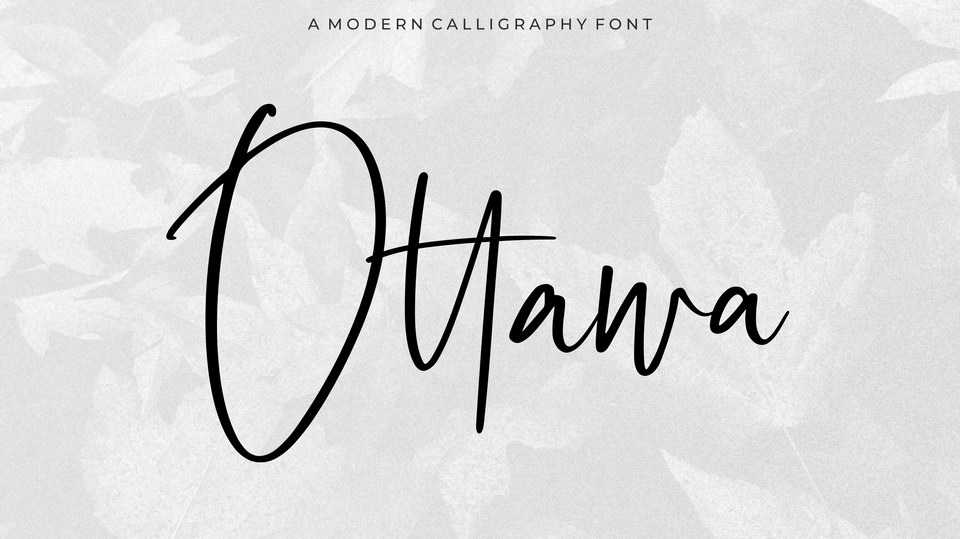
Download Ottawa font, a casual modern calligraphy script that expresses natural hand scratches. Ottawa script is perfect for product packaging, branding project, magazine, social media, or just used to express words above the background.